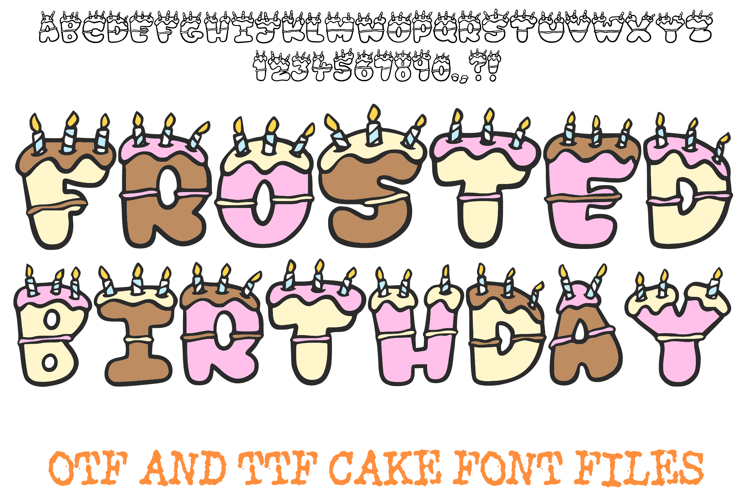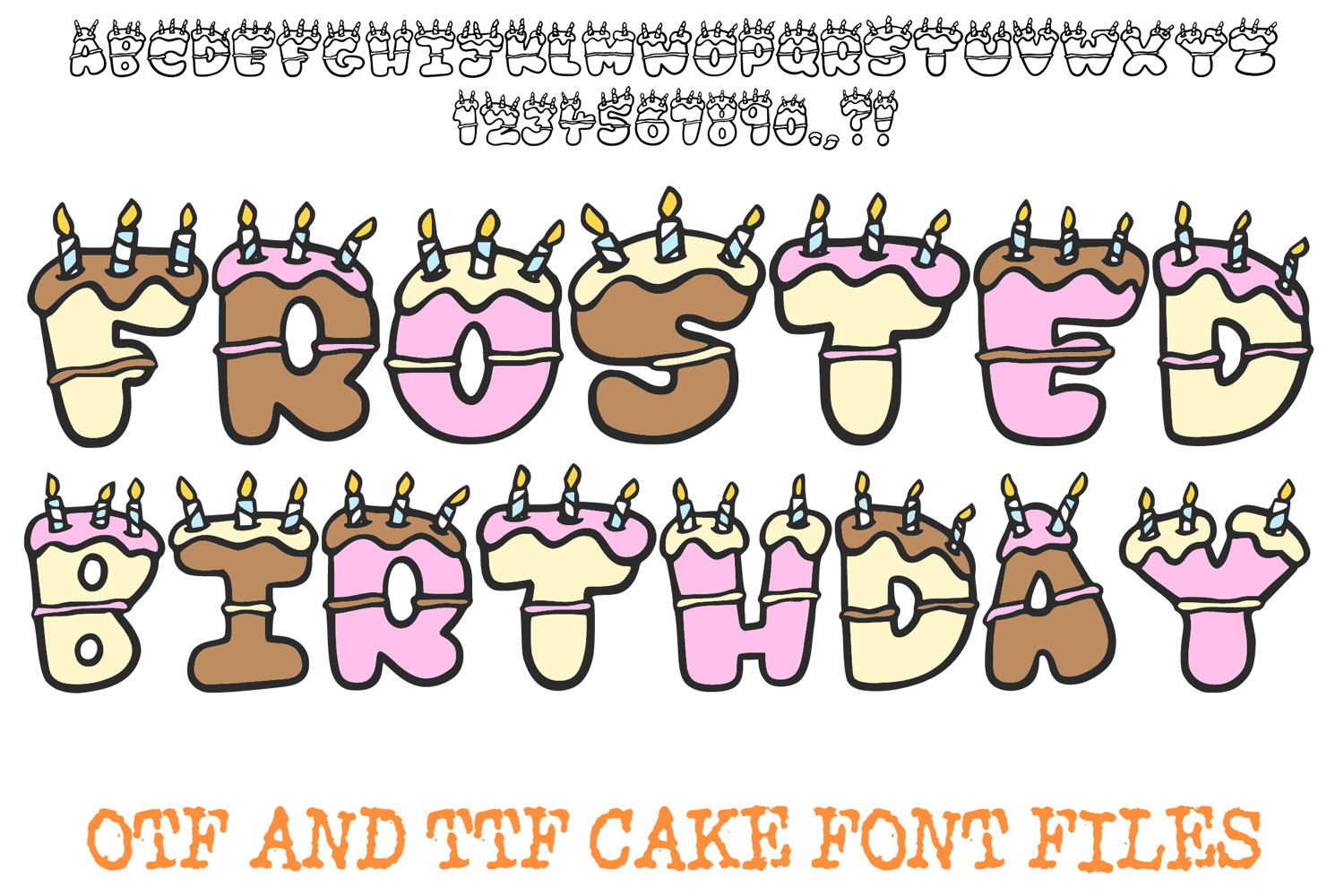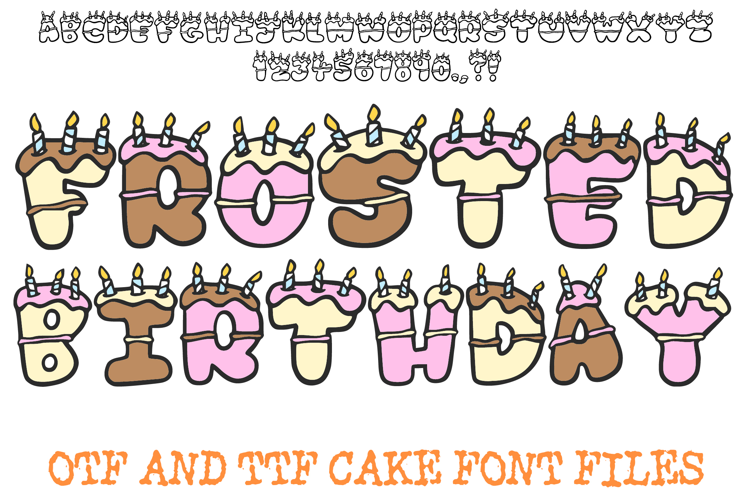
Frosted Birthday Cake Font Bubble Doodle Lettering ABC OTF
Make every design a celebration with the Birthday Cake Font. This whimsical, bubbly display typeface is crafted to look like delicious, frosted letters topped with tiny, glowing candles. It is the perfect choice for high-impact birthday invitations, celebratory party graphics, kids' menus, and any creative project that needs a sweet, celebratory touch.
The playful, rounded silhouette ensures maximum readability for headlines and logos, while the detailed candle illustrations bring a joyful, animated energy to your text. Whether you are designing for a colorful birthday banner or quirky social media branding, the Birthday Cake Font delivers a professional, artisan look that stands out instantly.
Festive Candle Details: Every character is topped with hand-drawn candles, creating an instant party atmosphere.
Bubbly Rounded Structure: The thick, rounded block style ensures maximum readability for headlines and logos.